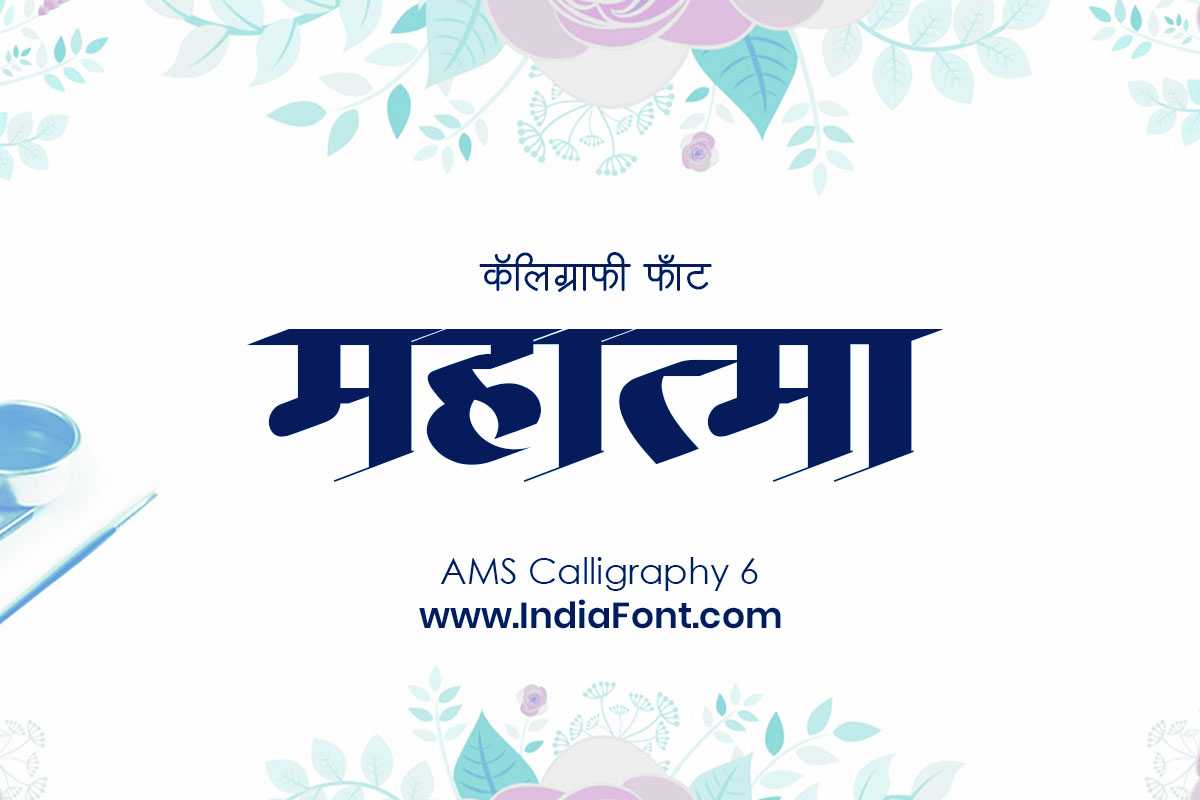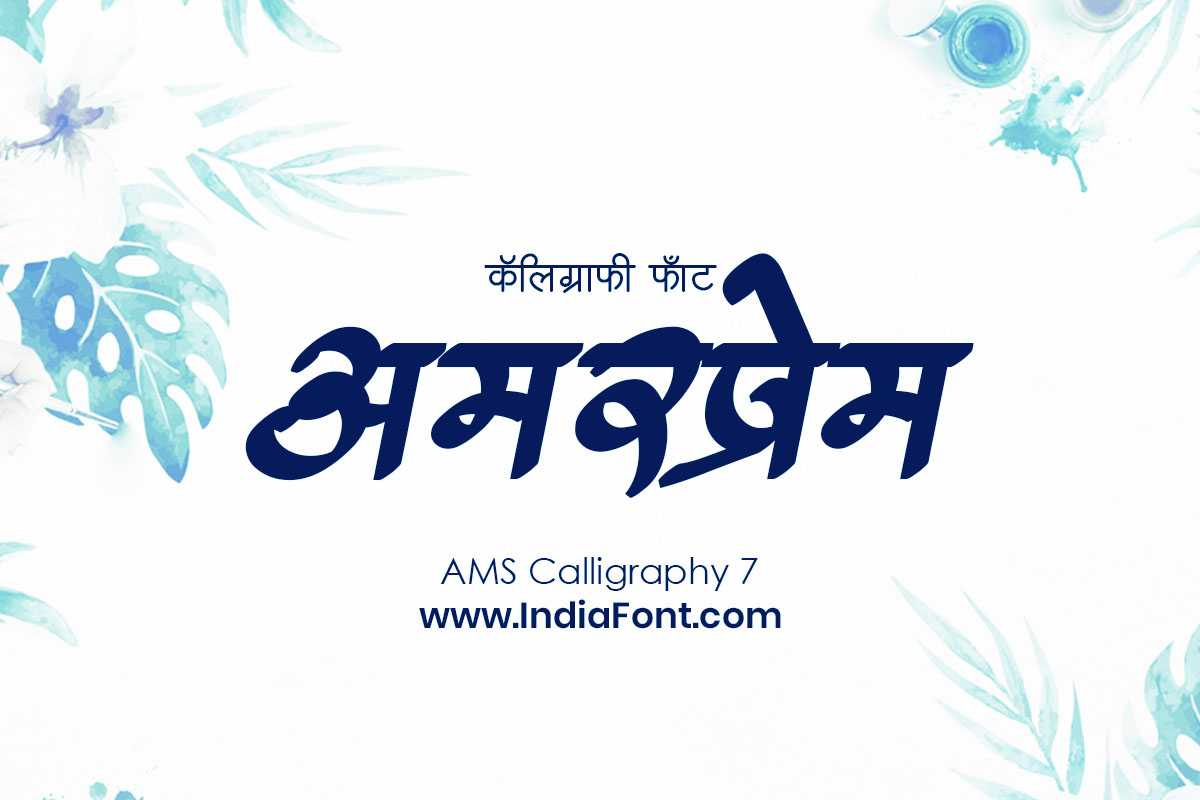
Bold Fonts
Discover our collection of bold fonts fonts.
AMS Yogesh
Experience the artistry of AMS Yogesh, a calligraphy font that captures attention with its flowing and expressive letterforms. This font is ideal for designers seeking stylish Hindi fonts, calligraphy fonts that evoke a sense of creativity, or fonts that offer a unique font style download.
AMS Aaditya
Master AMS Aaditya: bold Hindi calligraphy font by Manoj Jaiswal. Perfect for wedding invitations and cultural designs. Learn advanced typography techniques, explore creative applications, and discover design inspiration for traditional Devanagari projects with authentic Indian calligraphic styling.
AMS Aakul 3
Building upon the success of AMS Aakul 1 and AMS Aakul 2, AMS Aakul 3 brings a fresh perspective to Devanagari script. Its harmonious blend of traditional elements and contemporary aesthetics results in a typeface that exudes sophistication and versatility.
AMS Aakul 4
AMS Aakul 4 is a font that embodies the beauty and complexity of Devanagari script, empowering your designs to make a lasting impact. Download AMS Aakul 4 and embark on a new chapter of typographic excellence in your creative journey.
AMS Aakul 6
AMS Aakul 6 is a mesmerizing decorative font that brings a touch of artistic sophistication to your designs. With its intricate details and ornate flourishes, this font captures attention and adds a touch of elegance to any project.
AMS Aakul 7
AMS Aakul 7 is a mesmerizing decorative font that brings a touch of artistic sophistication to your designs. With its intricate details and ornate flourishes, this font captures attention and adds a touch of elegance to any project.
AMS Aakul 8
AMS Aakul 8 is a modern and versatile Devanagari font that combines elegance with functionality. With its free lines and balanced proportions, this typeface is perfect for a wide range of design projects.
AMS Calligraphy 6
Add a touch of flair to your designs with AMS Calligraphy 6, a captivating font that showcases bold and expressive letterforms. Its dramatic flourishes and stylish swashes make it perfect for crafting eye-catching headlines and designing impactful social media graphics.
AMS Calligraphy 7
Elevate your designs with the timeless charm of AMS Calligraphy 7, a versatile font that combines elegance and sophistication. Its balanced letterforms and graceful curves bring a sense of harmony to your projects.
AMS Calligraphy 8
Discover the classic beauty of AMS Calligraphy 8, a Hindi and Marathi font that embodies the artistry of traditional calligraphy. With its clean and balanced design, this AMS font adds a touch of sophistication to any project.
AMS Candy
Indulge your design projects with the delightful AMS Candy font! This decorative font adds a sweet and playful touch to your creations. Perfect for designing eye-catching posters or crafting vibrant social media graphics, AMS Candy will make your designs pop.
AMS Cinema
Lights, camera, action! Introducing AMS Cinema, a decorative font that brings a touch of Hollywood glamour to your designs. Ideal for those seeking free AMS fonts, AMS Cinema adds a touch of vintage charm to your projects.